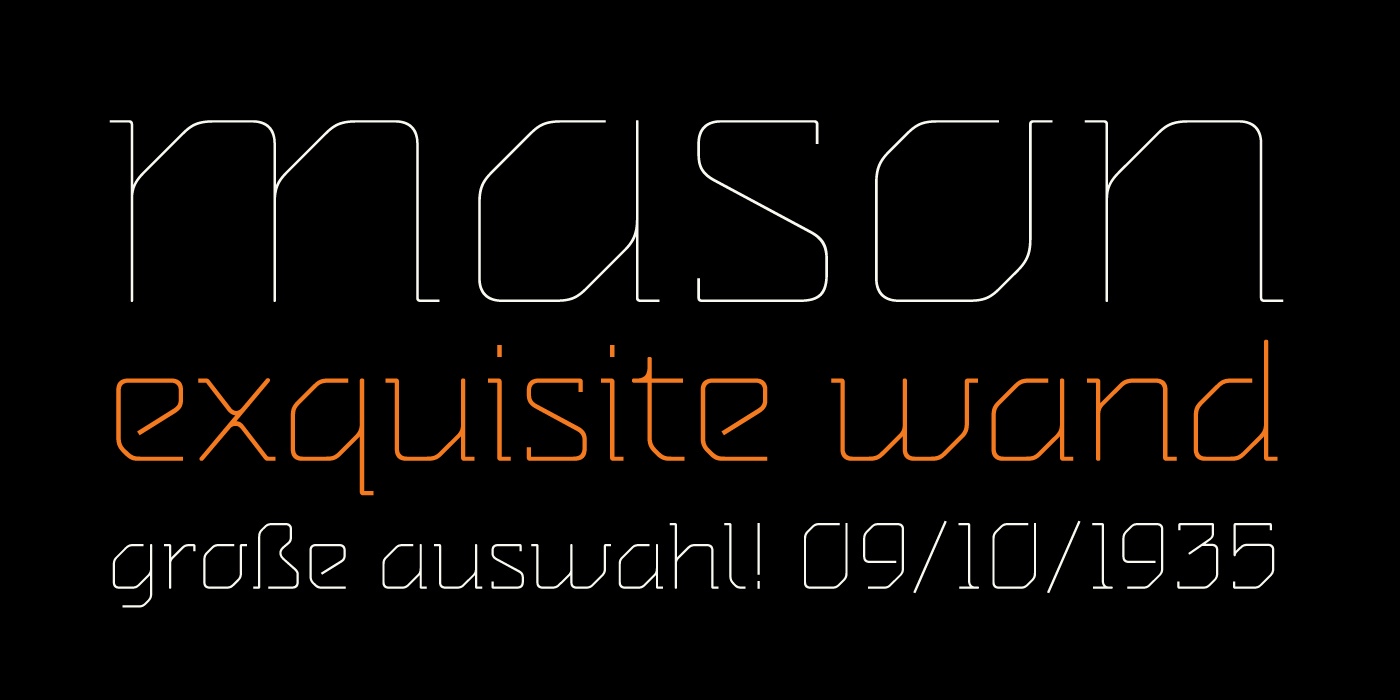
MM Agrafa Font
MM Agrafa Font is perfect for oral tradition preservation societies, storytelling organizations, ancient cultural heritage centers, traditional folklore festivals, indigenous cultural programs, and verbal history documentation projects. Its authentic character makes it ideal for cultural anthropology institutions, traditional music venues, spoken word performance spaces, historical documentation services, community storytelling initiatives, and any project requiring cultural preservation with oral tradition authenticity and ancestral wisdom appeal.
This font is exciting because it honors the timeless power of oral communication and cultural transmission while delivering exceptional functionality for organizations dedicated to preserving spoken heritage and traditional knowledge systems. The thoughtfully crafted letterforms evoke the warmth of gathered communities, the wisdom of elders, and the precious nature of stories passed down through generations, creating powerful connections with audiences who value cultural preservation and authentic human connection.
The MM Agrafa Font family typically includes Light, Regular, Medium, and Bold weights with traditional alternates, heritage-inspired ligatures, and cultural elements that enhance its storytelling personality. This comprehensive collection enables cultural professionals to create respectful brand systems that maintain traditional authenticity while providing flexibility for various heritage applications requiring both cultural sensitivity and contemporary accessibility.
Whether you're developing identity systems for cultural preservation organizations, creating materials for storytelling festivals, or designing platforms for oral history projects, MM Agrafa Font Free Download delivers the cultural authenticity and traditional wisdom that resonates with communities seeking to preserve and celebrate their heritage. Its respectful presence ensures trusted brand recognition across digital platforms and print materials, making it perfect for websites, mobile applications, and cultural campaigns that celebrate oral traditions, ancestral wisdom, and the vital importance of preserving spoken heritage with contemporary relevance and authentic cultural respect.